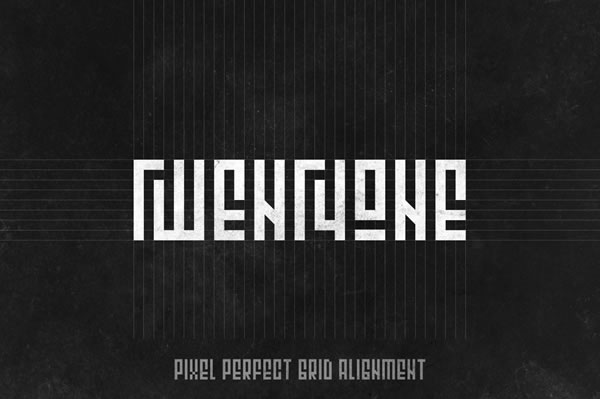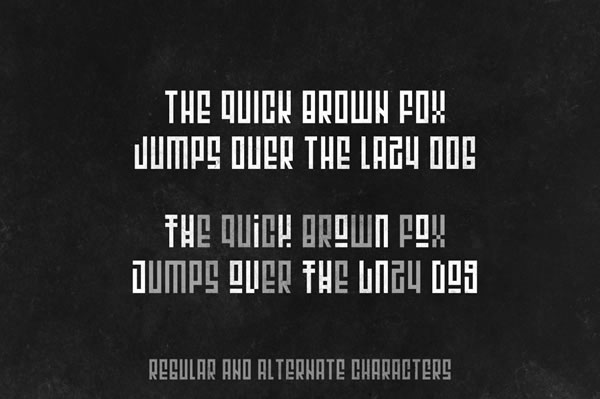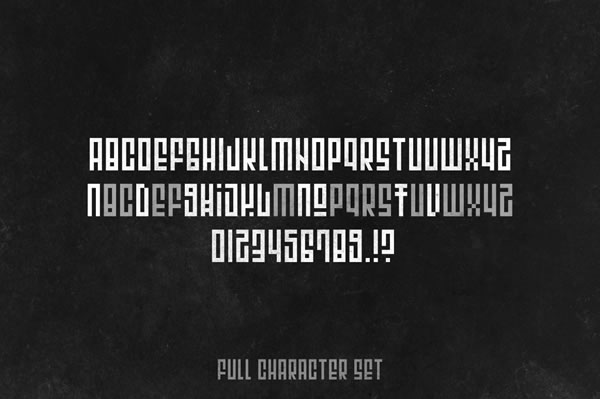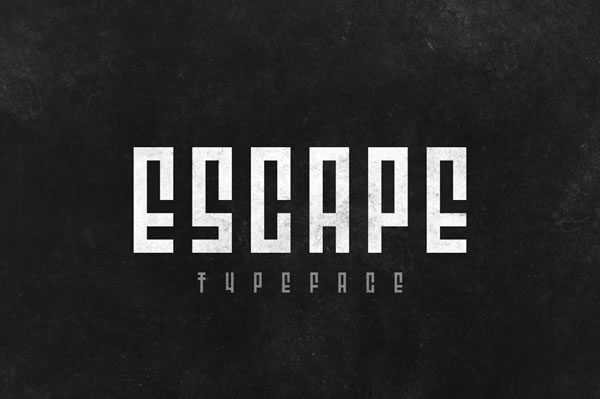
Introducing Escape Font: Unleash Your Creativity with this Bold and Modular Display Font
Are you a designer or crafter looking for a font that can help you create stunning visuals? Look no further than Escape Font, a bold and modular display font that’s perfect for poster design and other cool stuff. In this article, we’ll take a closer look at what makes Escape Font so special and how you can use it to take your designs to the next level.
What is Escape Font?
Escape Font is a raw and highly versatile font that’s constructed using grids, giving you complete freedom to manipulate it into any shape or form you desire. This unique approach allows you to experiment with different styles and configurations, making it an ideal choice for designers who want to push the boundaries of creativity.
Key Features of Escape Font
- Bold and Modular Design: Escape Font boasts a bold and modular design that’s perfect for making a statement. Its chunky lines and geometric shapes make it highly legible, even at large sizes.
- Grid-Based Construction: The font is built using grids, which provides a high level of flexibility and customization. You can easily adjust the font to fit your design needs.
- Highly Versatile: Escape Font can be used for a wide range of design projects, from poster design and branding to packaging and advertising.
- Easily Manipulable: The font’s grid-based construction makes it easy to manipulate and modify, allowing you to create unique and complex designs.
Uses of Escape Font
Escape Font is perfect for a variety of design projects, including:
- Poster Design: The font’s bold and eye-catching design makes it perfect for creating striking posters that grab attention.
- Branding and Logo Design: Escape Font’s unique and geometric design makes it an excellent choice for creating memorable logos and brand identities.
- Packaging Design: The font’s versatility and customizability make it ideal for designing packaging that stands out on store shelves.
- Advertising and Marketing: Escape Font’s bold and attention-grabbing design makes it perfect for creating eye-catching ads and marketing materials.
Tips for Using Escape Font
Here are some tips for getting the most out of Escape Font:
- Experiment with Different Configurations: Don’t be afraid to experiment with different font configurations and styles to find the one that works best for your design.
- Use it Bold and Bright: Escape Font is designed to make a statement, so don’t be shy with its use. Use it in bold and bright colors to really make it pop.
- Mix and Match with Other Fonts: Escape Font pairs well with a variety of other fonts, so don’t be afraid to mix and match it with other fonts to create a unique look.
| Font Name | Escape Font |
| Author | Paul Stancel |
Escape Font is a powerful and versatile font that’s perfect for designers and crafters who want to create bold and eye-catching designs. Its unique grid-based construction and highly customizable design make it an excellent choice for a wide range of design projects. Whether you’re designing posters, logos, or packaging, Escape Font is sure to help you take your designs to the next level.